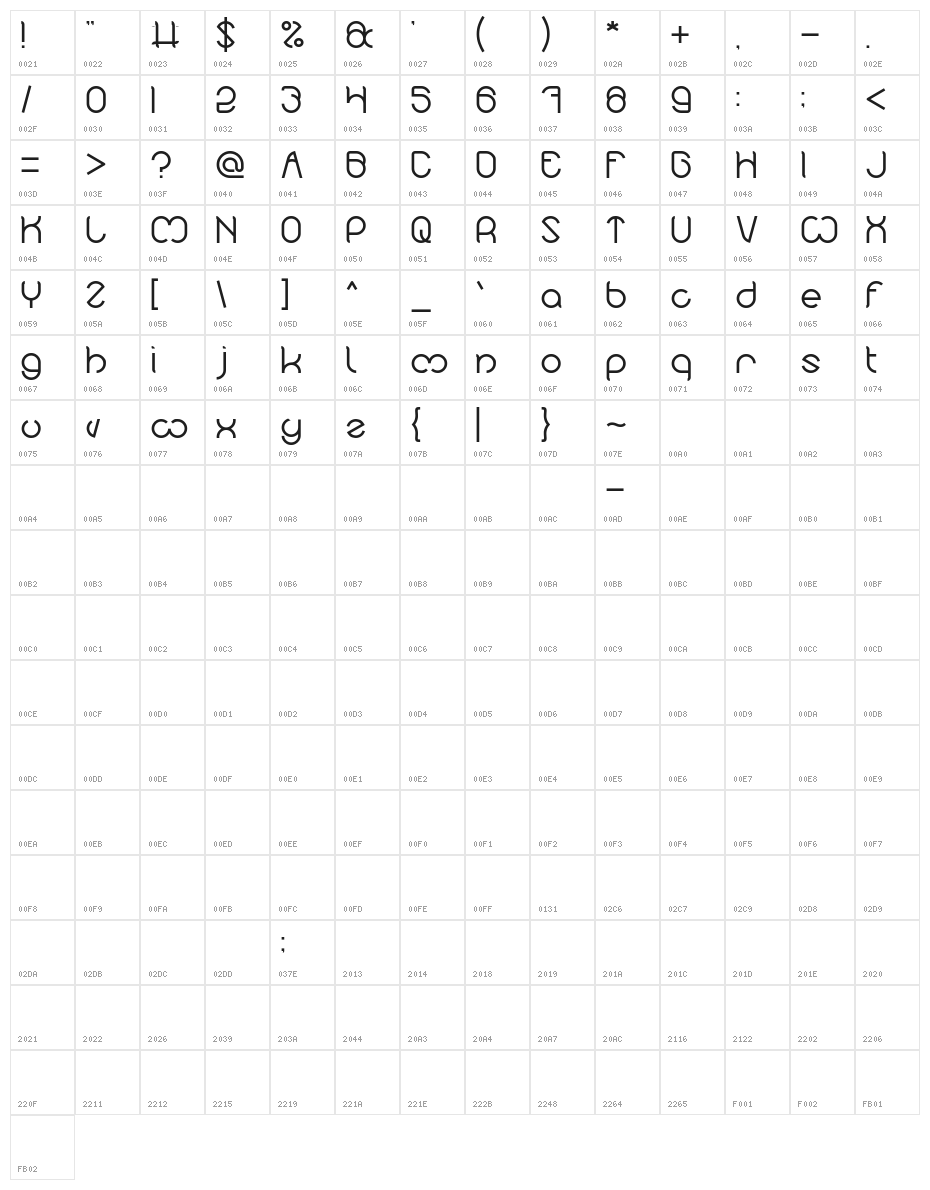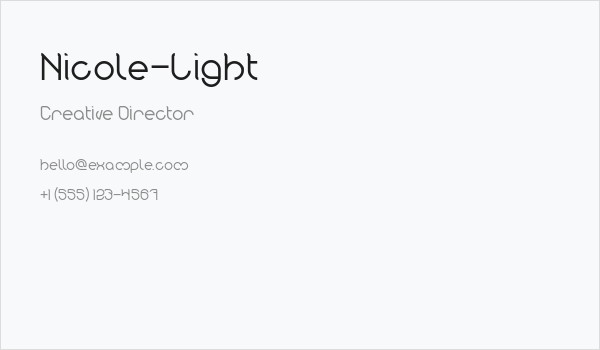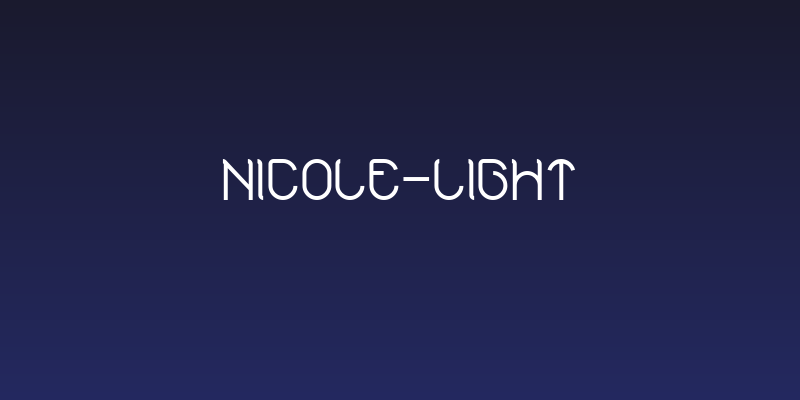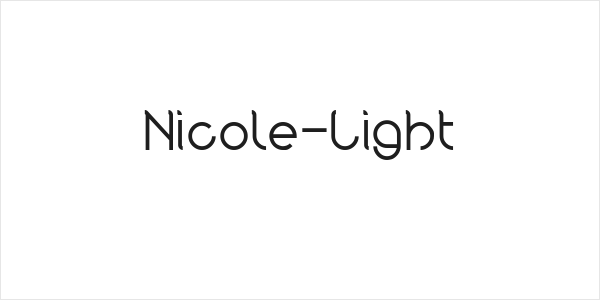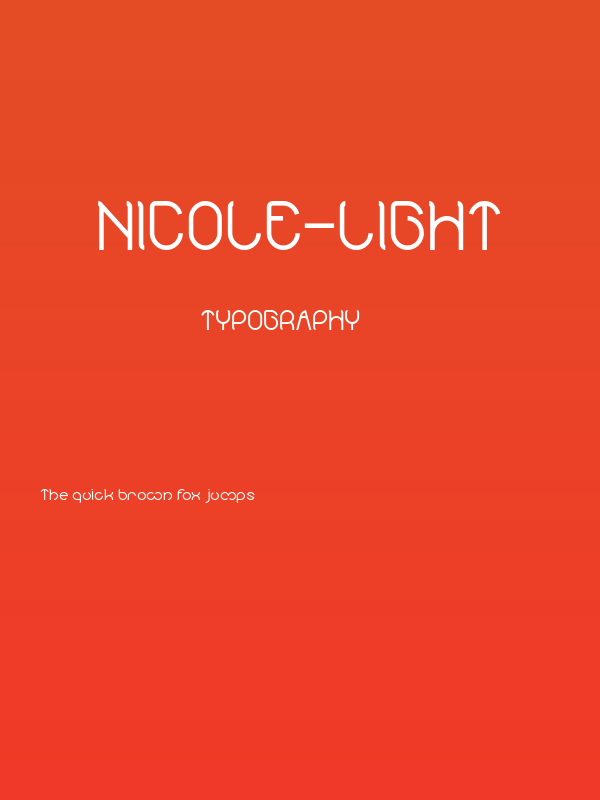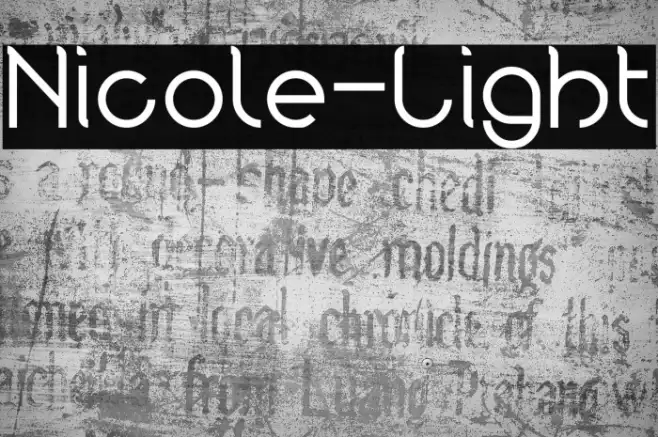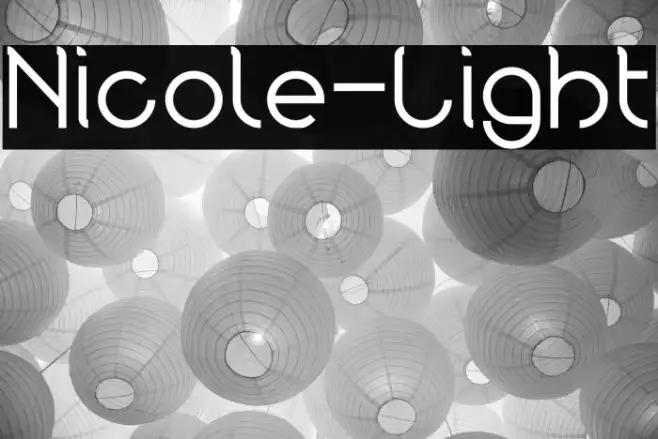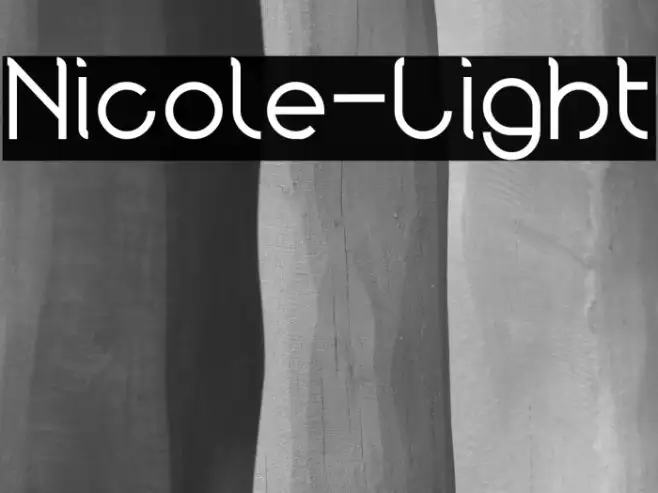
Nicole-Light Font
Nicole-Light Description
This font features a unique and modern design with a geometric and futuristic flair. The characters are crafted with a consistent stroke width, giving it a clean and uniform appearance. The uppercase letters have a distinctive rounded and open form, while the lowercase letters maintain a similar style with slight variations in curvature and openness. The numerals are designed to match the overall aesthetic, with a clear and legible structure. Special characters are included, maintaining the same stylistic elements, ensuring a cohesive look across all glyphs. This font's design is both eye-catching and versatile, making it suitable for a variety of creative applications.
| Overall Style | Modern, Geometric |
| Use Case | Logos, Headlines, Digital Media |
| Proposed Projects | Ideal for branding, logo design, futuristic themes, and digital media projects. |